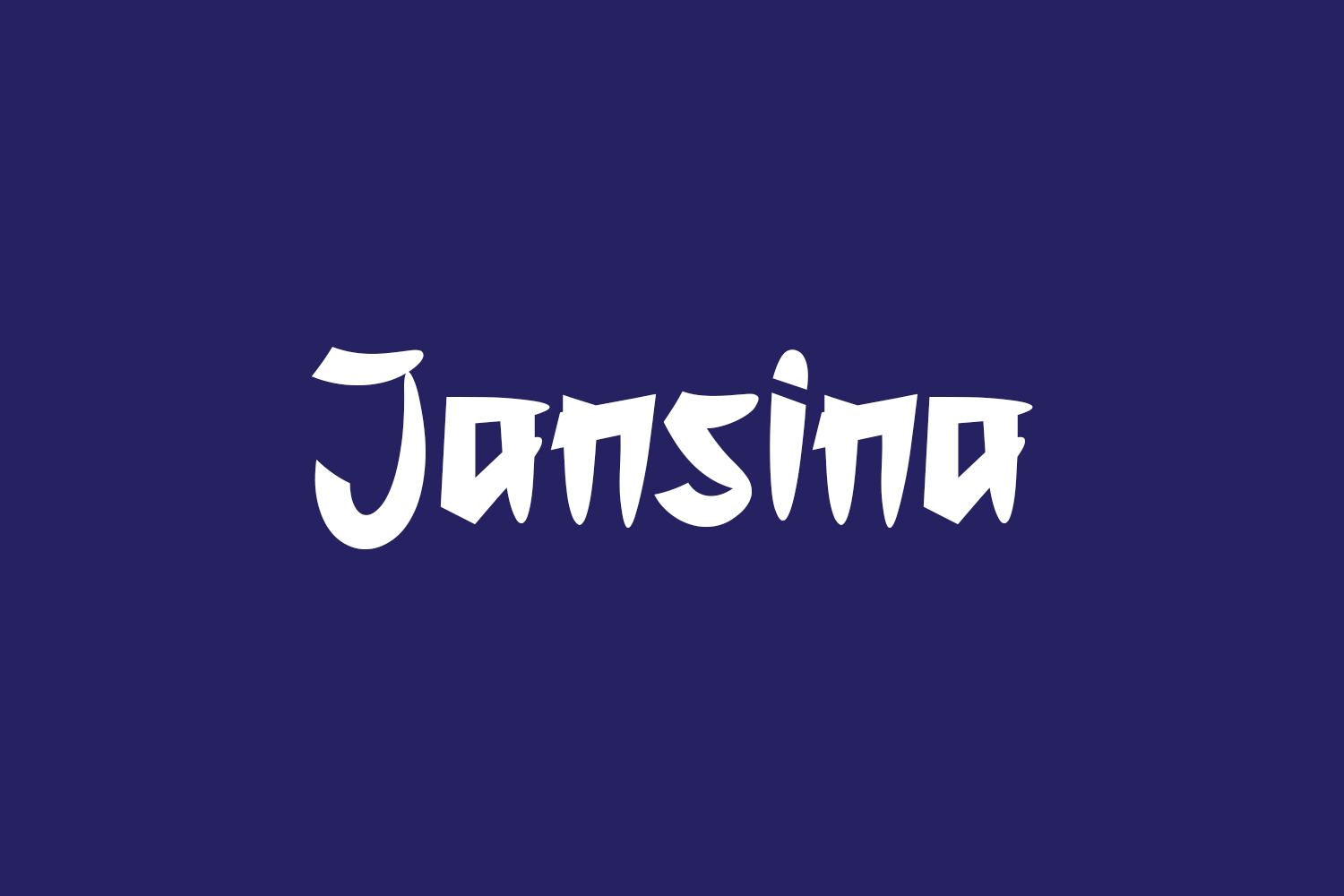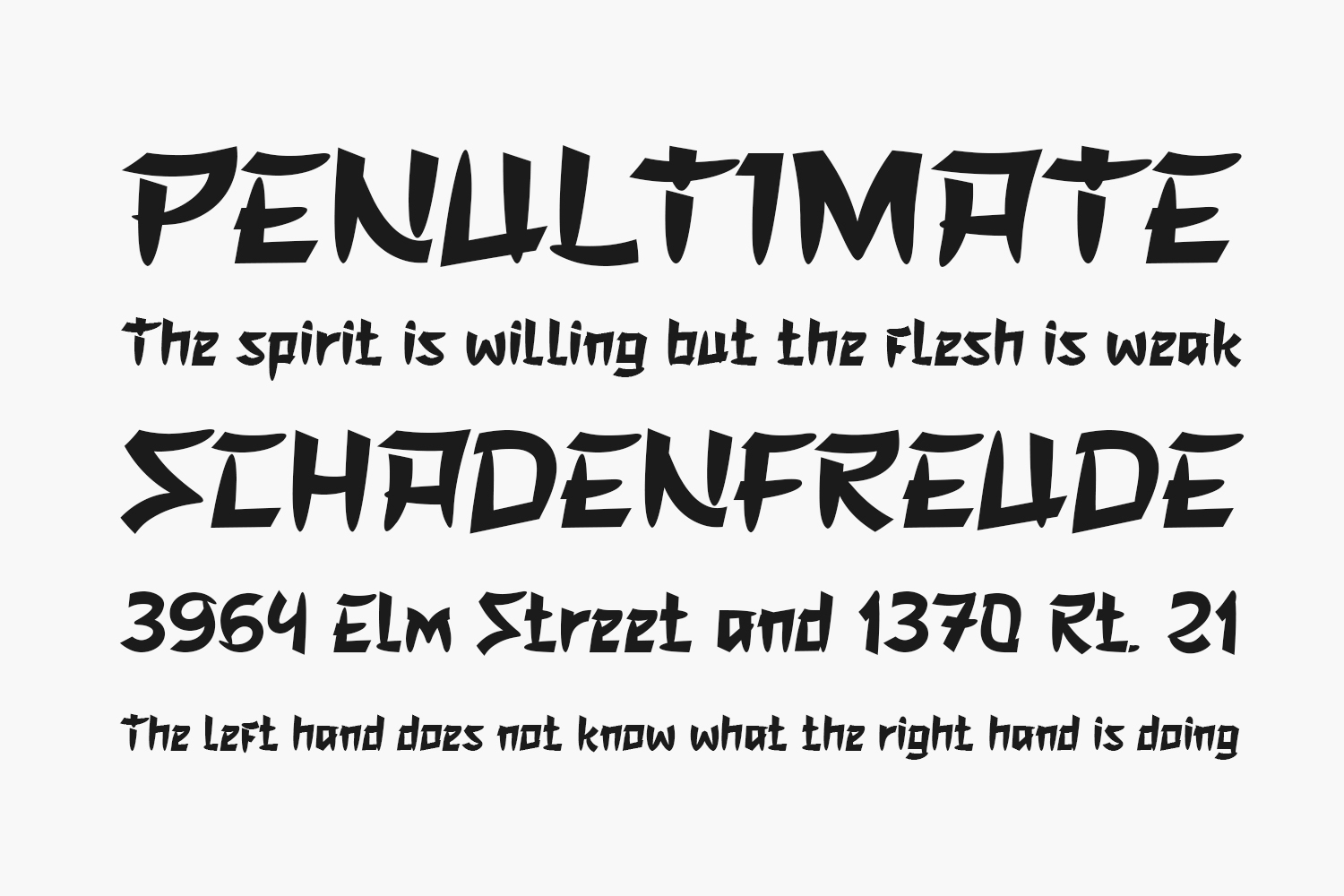
Jansina Free Font is a Japanese-style display font with a unique shape. It is ideal for making your project stand out in Japanese culture. This typeface will make all of your projects have a stylish Asian flair. Logotypes, food banners, branding, brochure, posters, movie titles, book titles, quotes – they may all benefit from this font.